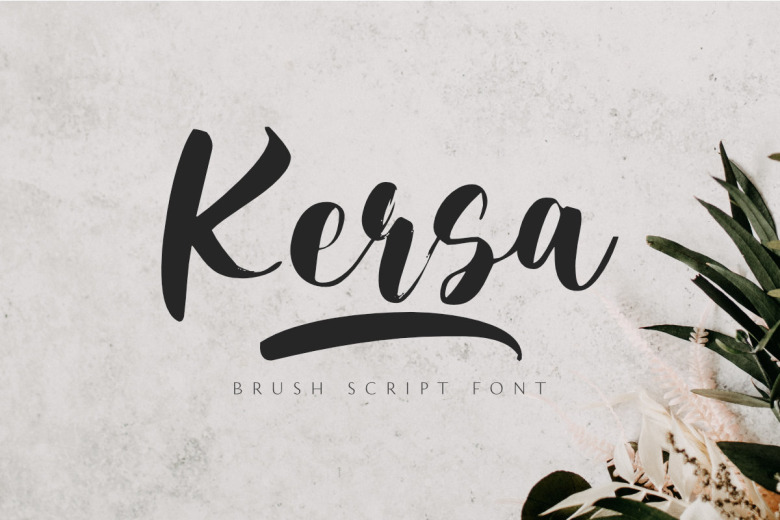
Kersa Font
Create something gorgeous and cool with Kersa! It is a sophisticated hand-written  brush typeface. Pick it and you will quickly be impressed with how different and exciting your designs become, in a good way, of course! With gorgeous and well-balanced characters, this typeface fits a broad range of projects. Make your wildest dreams come true.
Kersa Brush Script Font